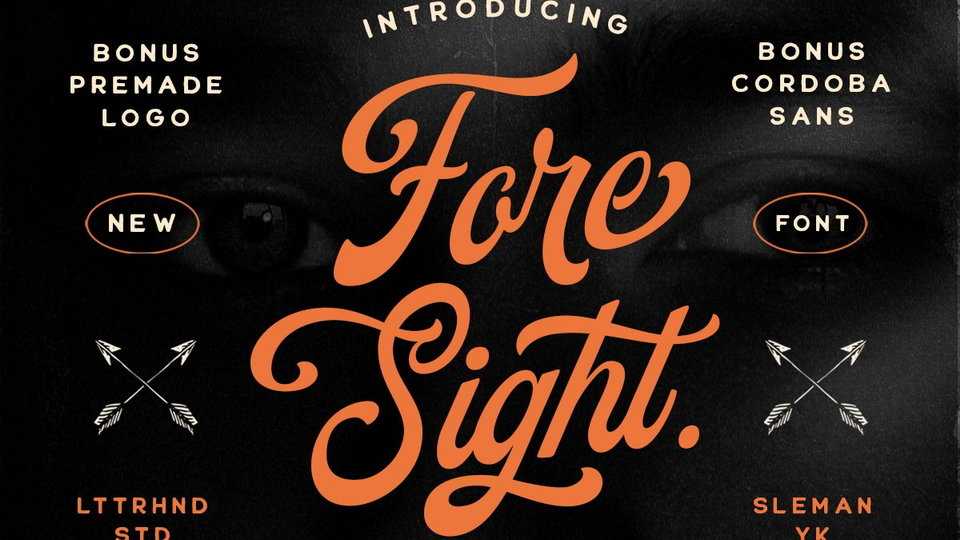
Download Foresight font, a vintage script typeface, crafted to give your headlines and logotype projects a retro touch. This font reads as strong, confident, and dynamic.